Introducing a trio of sophisticated storytelling serifs
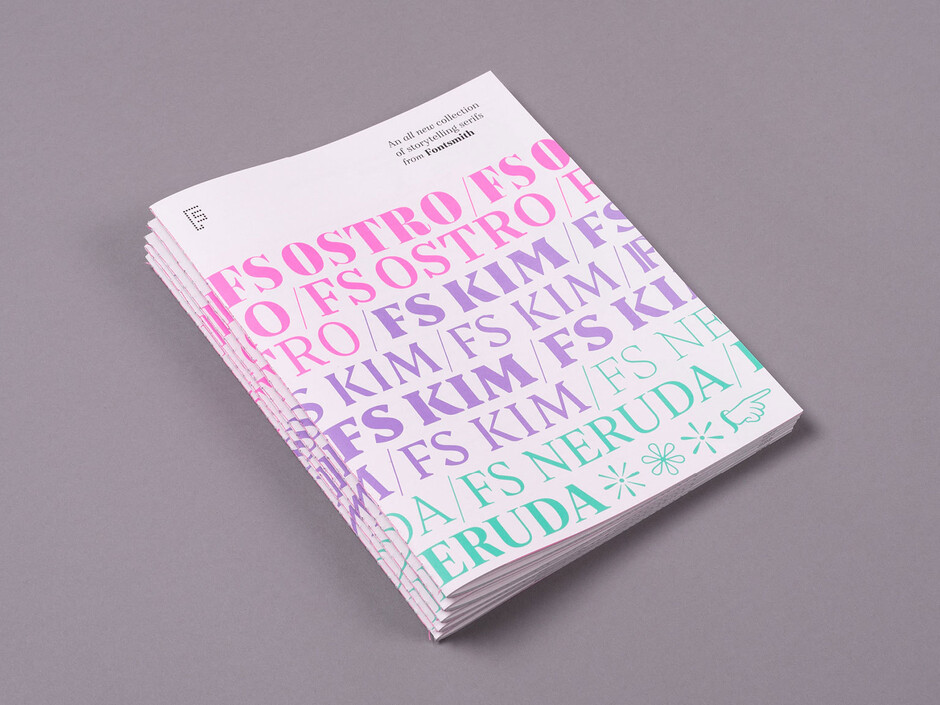
In a Fontsmith first, we’re launching a trio of serif typefaces at once. While FS Kim, FS Neruda and FS Ostro are all unique, individual fonts, together they form a cohesive, carefully curated addition to the Fontsmith library. 50 brand new fonts in total to be exact…
These fonts are storytellers, and aimed at those who tell stories – from books to newspapers and magazines, to online editorial platforms. Whether those tales are hard-hitting news stories, poems, plays, gossip or serious non-fiction, these fonts are designed to tell them perfectly. These serifs all work across an impressive range of settings: headlines, large body copy, smaller body copy and more. With enough variety and versions to provide an entire typographic system in editorial. What they have in common is a marriage of classic, and contemporary values with striking, original touches that make them at once eye-catching and resourceful.
While Fontsmith’s library already boasts a selection of serifs, FS Kim, FS Neruda and FS Ostro were all created to bring something entirely new: a fashion-influenced showstopper, a quirky Sabon-inspired old-style serif and a contrasting Modern-style serif respectively.
Everyone’s getting tired of the same old geometric fonts we see online, screens are so much better these days and audiences are much more educated, so you don’t have to dumb down fonts. People want to read things properly, and to see and importantly feel something different – we can, and do, use serif typefaces digitally.
There’s a backlash beginning against a lot of online brands looking the same: people and brands want to be identifiable, so we’re moving away from those geometric monoline styles. You can be more expressive in some cases with serifs. It’s our job as type designers to negotiate trends, and we look at what’s happening in music, fashion, car design, art, architecture – all those things inform us as visual designers, classic craftmanship is all around us.